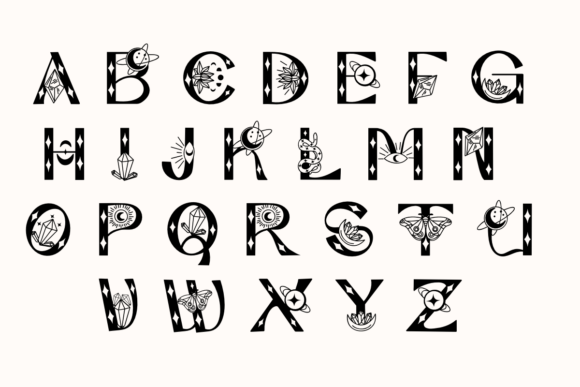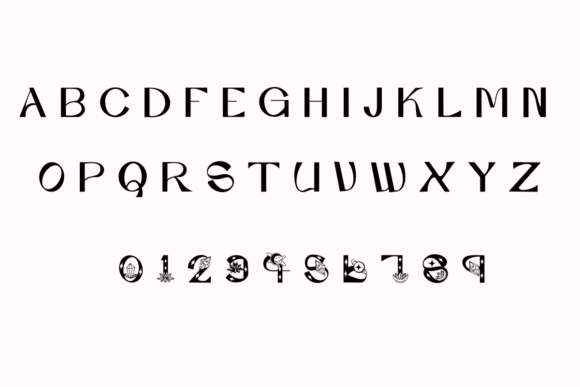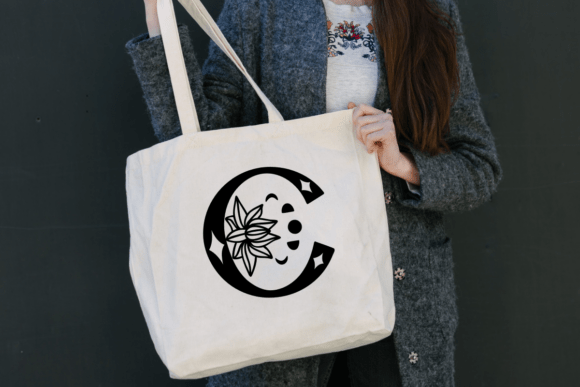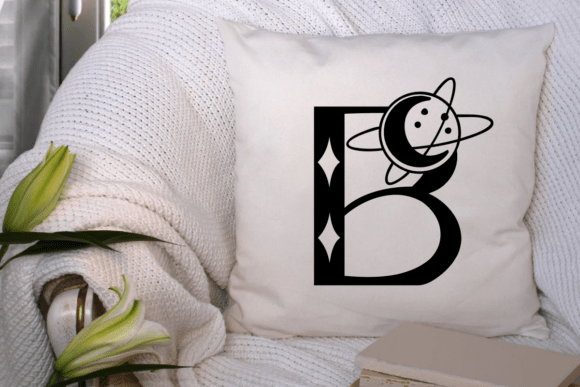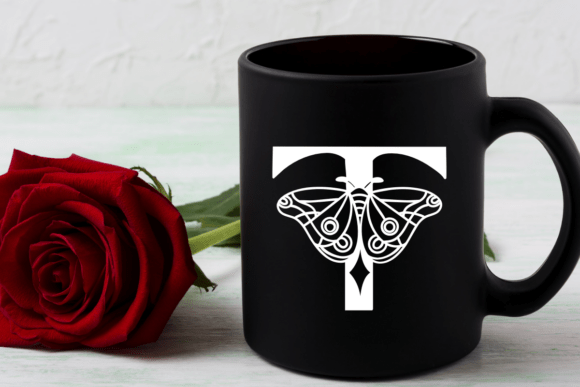
Astral Object Font: Elevate Your Designs with a Touch of Whimsy
Are you a designer, crafter, or DIY enthusiast looking for a unique and decorative font to add a personal touch to your projects? Look no further than the Astral Object Font! This versatile and visually appealing font is perfect for a wide range of creative endeavors, from taking notes and writing diaries to crafting greeting cards, banners, and more.
What is Astral Object Font?
Astral Object Font is a decorative font designed to add a touch of whimsy and personality to your designs. Its unique and eye-catching style makes it perfect for projects that require a bit of flair, such as:
- Note-taking and journaling
- Writing diaries and letters
- Crafting greeting cards and invitations
- Designing banners and signs
- Creating social media posts and content
- Personalizing mugs, cards, shirts, and stationery
Why Choose Astral Object Font?
So, what sets Astral Object Font apart from other fonts? Here are just a few reasons why designers and crafters love this font:
- Unique Style: Astral Object Font boasts a distinctive and stylish design that’s sure to make your projects stand out.
- Versatility: Whether you’re creating digital content or physical products, this font adapts seamlessly to various mediums and formats.
- Ease of Use: With its clear and readable design, Astral Object Font is easy to use, even for those with limited design experience.
- Customization: Feel free to experiment with different colors, sizes, and styles to make the font your own.
Ideas for Using Astral Object Font
The possibilities are endless when it comes to using Astral Object Font! Here are some inspiring ideas to get you started:
- Journaling and Note-taking: Add a decorative touch to your journals, planners, and notes with Astral Object Font.
- Greeting Cards and Invitations: Create personalized and eye-catching greeting cards, invitations, and thank-you notes.
- Social Media Content: Elevate your social media posts with custom graphics, quotes, and messages featuring Astral Object Font.
- DIY Crafts: Use Astral Object Font to add a personal touch to your DIY crafts, such as customized mugs, t-shirts, and stationery.
- Banners and Signs: Design eye-catching banners and signs for events, parties, or business promotions.
Tips for Working with Astral Object Font
To get the most out of Astral Object Font, keep the following tips in mind:
- Experiment with Colors: Try pairing Astral Object Font with different colors and textures to create unique and visually appealing designs.
- Mix and Match Fonts: Combine Astral Object Font with other fonts to create interesting and dynamic typography.
- Pay Attention to Size: Adjust the font size to suit your design needs, ensuring that the text is clear and readable.
- Have Fun: Don’t be afraid to try new things and experiment with different design ideas!